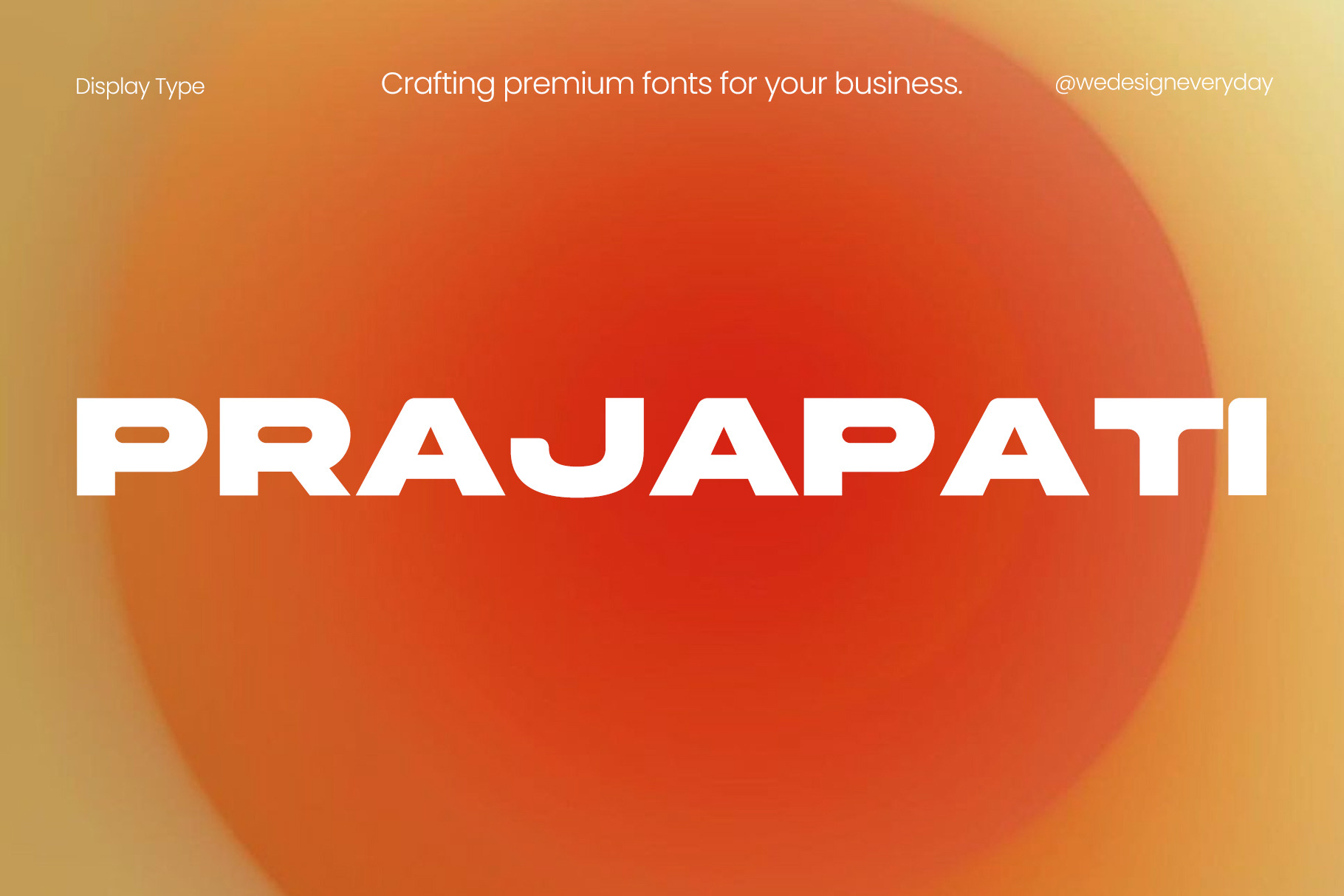
Prajapati Display Sans Serif Font
Introducing Prajapati sans serif font, a captivating typeface designed to make a bold statement. Prajapati sans serif font is perfect for branding, headlines, and any creative project that demands attention.
With its unique character set and versatile style, Prajapati sans serif font is ideal for everything from posters and advertisements to logos and social media graphics.